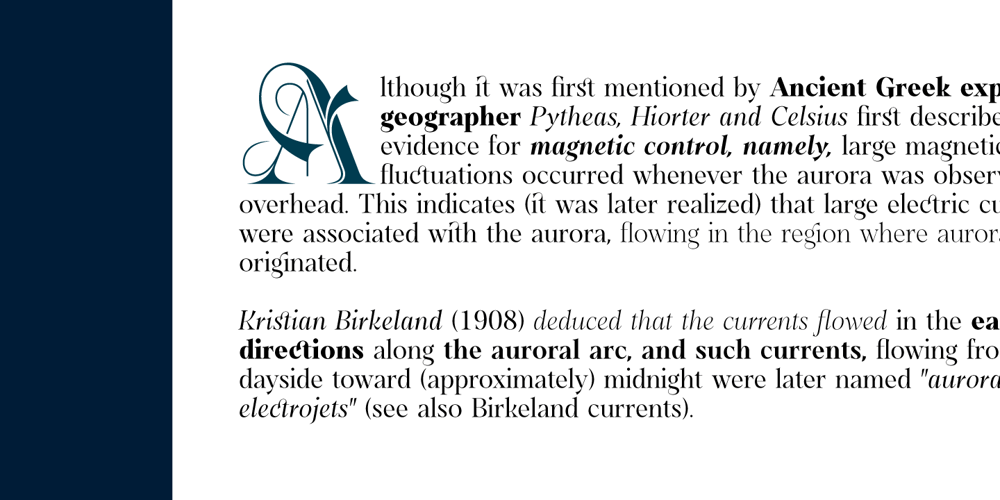
Dawnora Font Family was designed by published by Typomancer. Dawnora contains 11 styles and family package options. Inspired by aurora, one of the most impressive phenomenon. Dawnora is a spirited serif font comes with various weights and many opentype features, suitable for both simple text and elegant lettering. Especially, Initials style for drop cap and special usage.